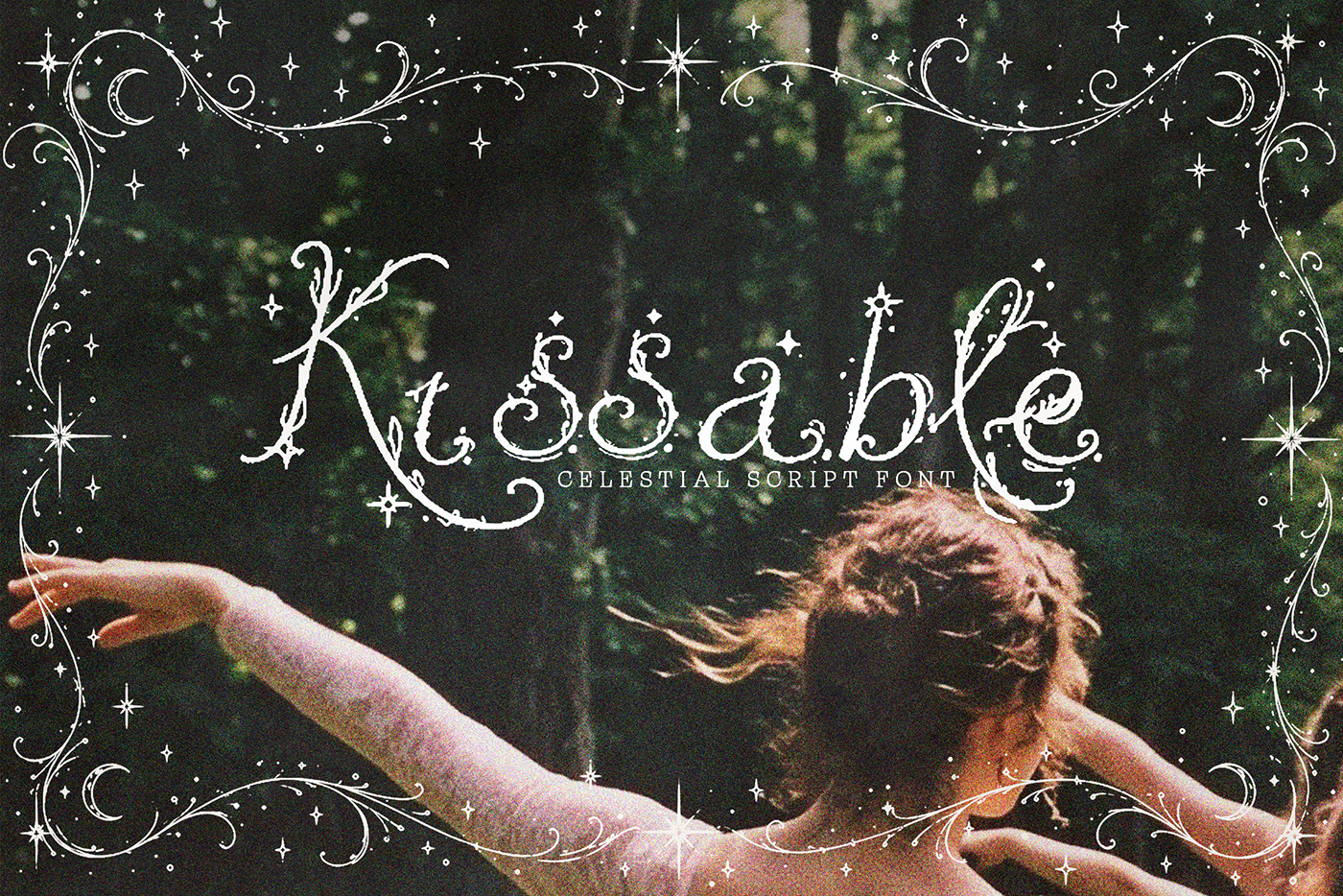
Whimsy Stardust - Script Font
Step into a world of moonlit wishes and sparkling skies with Whimsy Stardust, a whimsical celestial script font filled with delicate swirls, tiny stars, dreamy flourishes, and magical handwritten details.
Every character has its own enchanting personality, combining elegant vintage lettering with playful stardust accents. The decorative capitals, flowing lowercase letters, celestial numerals, and charming punctuation make this font perfect for designs that need a romantic, mystical, or storybook-inspired touch.
Because of its richly decorative style, Whimsy Stardust works beautifully for titles, names, short phrases, invitations, and display typography.
Add a little celestial magic to your next project with Whimsy Stardust a font made for dreamers, romantics, and lovers of the night sky.